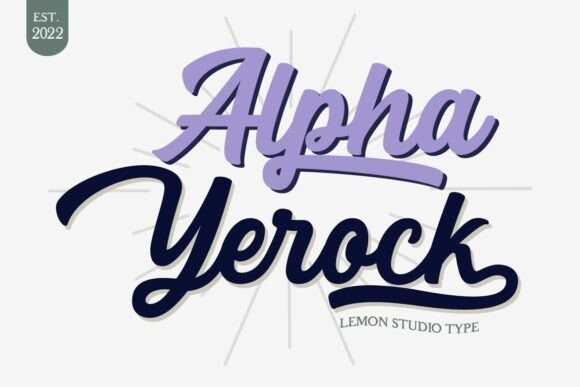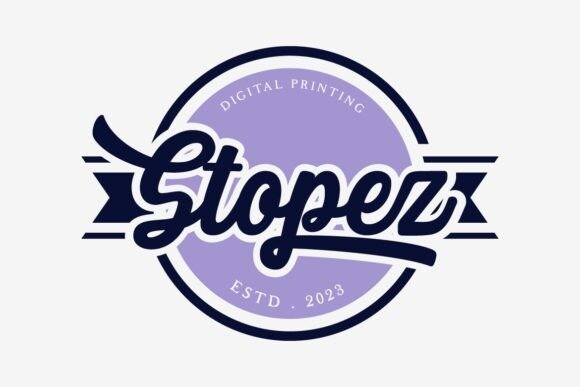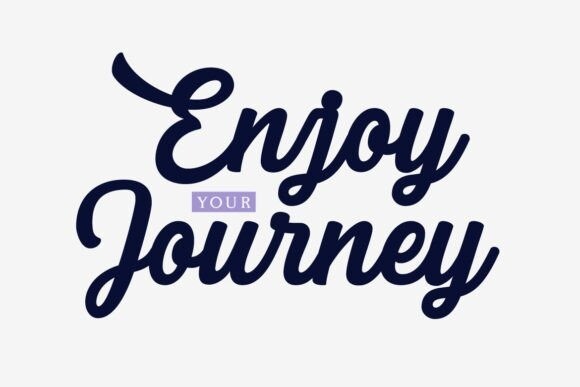
Alpha Yerock Font
Alpha Yerock is a bold script font that comes with an opentype feature that catches your eye.
Alpha Yerock is perfect for branding, wedding invitations, labels, headings, and much more. Let’s get what you want with this font.